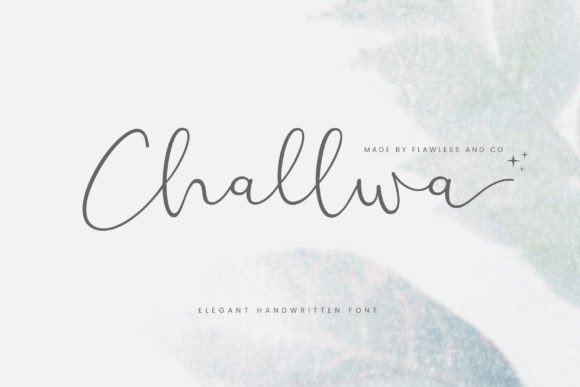
Prepare to be mesmerized by Challwa Font, a script font family designed to elevate your creations with elegance and panache. Crafted by the talented team at Flawless And Co., Challwa embodies the allure of timeless beauty, captivating with its graceful letterforms and refined strokes.
With Challwa, you unlock a world of creative possibilities. Its smooth curves and flowing lines evoke a sense of effortless elegance, making it perfect for wedding invitations that exude romance and sophistication. Picture your wedding stationery adorned with Challwa's delicate script, setting the tone for an unforgettable celebration.
The versatility of Challwa extends to luxury branding, effortlessly elevating your brand identity. Create logos, business cards, and marketing materials that radiate sophistication and exclusivity. Let Challwa's refined appearance add a touch of refinement to your brand, attracting discerning customers who appreciate the finer things in life.
Challwa's charm also shines in upscale packaging design. Envision product packaging that captivates customers with its intricate details and luxurious appeal. Challwa's delicate strokes and refined lines create a sensory experience that enhances the value of your products.
Let Challwa's elegance enchant your creative projects. Whether it's a wedding invitation, a luxury brand logo, or upscale packaging, Challwa adds a touch of sophistication that resonates with your audience. Immerse yourself in the beauty of Challwa and unlock a world of creative possibilities.